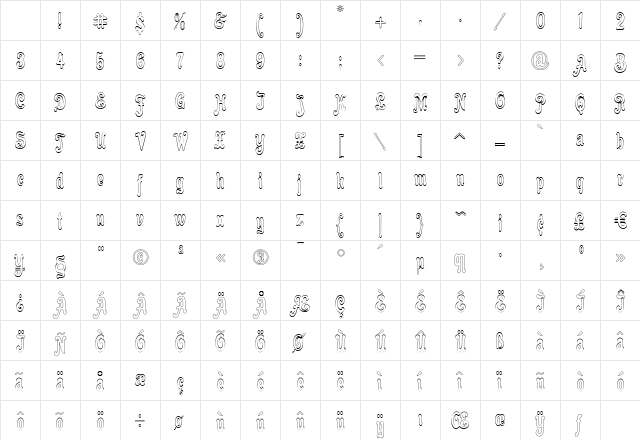
Complete Cacao Plain Outline Regular glyph index. Displaying only characters natively supported by Cacao Plain Outline Regular font.
Cacao Plain Outline is built around its visual character rather than neutral utility - its distinctive forms are designed to make an impression at display sizes.
Font Pairing: Pair with a clean neutral sans-serif for body copy to let Cacao Plain Outline's character lead without overwhelming the composition.
Pro Tip: Use Cacao Plain Outline exclusively at display sizes - it was designed to be seen, not read at length. Let a neutral companion handle body copy.